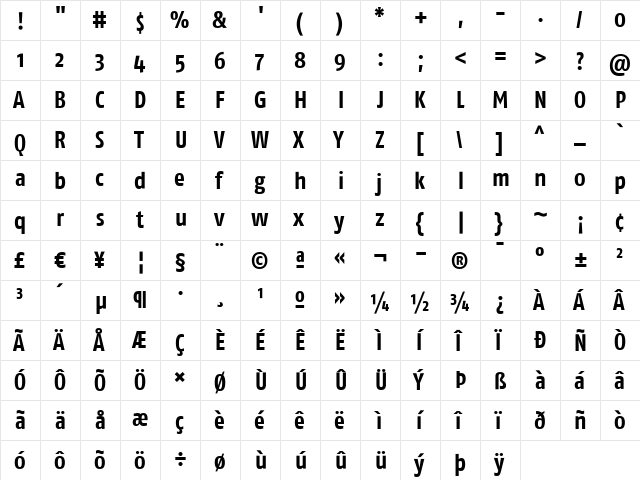
FagoCo Bold Font Preview
FagoCo Bold
FagoCo Bold Font Details
| Foundry | Ole Schaefer, . Published by FontShop International for FontFont Release Fago Condensed is a trademark of FSI Fonts and Software GmbH |
Design Context for FagoCo Typeface
FagoCo is a composed and adaptable typeface that performs quietly and consistently across a wide range of design contexts. Its bold stroke weight gives it real presence on the page.